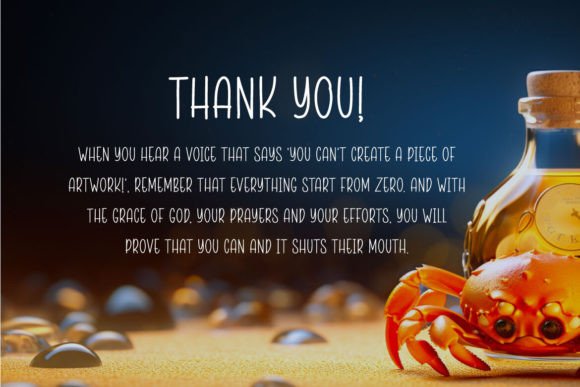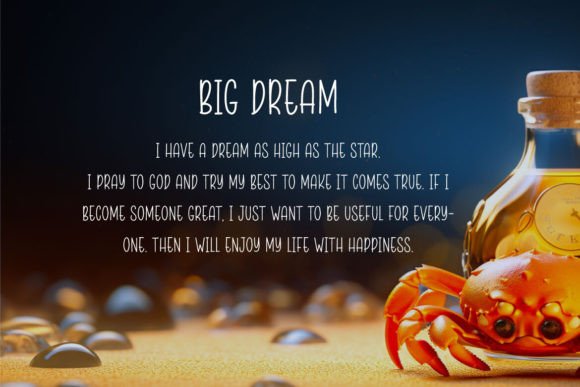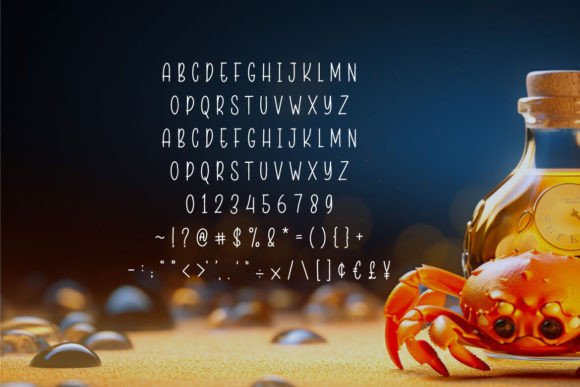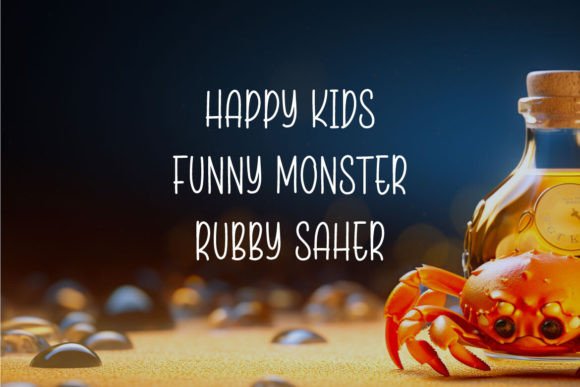
Introduction to Crab Labs Font
**Crab Labs** exudes an air of elegance and sophistication.
Delicate and graceful, each stroke of the letters in this font appears refined and understated The slender lines create a sense of lightness and subtlety, giving the text a modern and minimalist aesthetic.